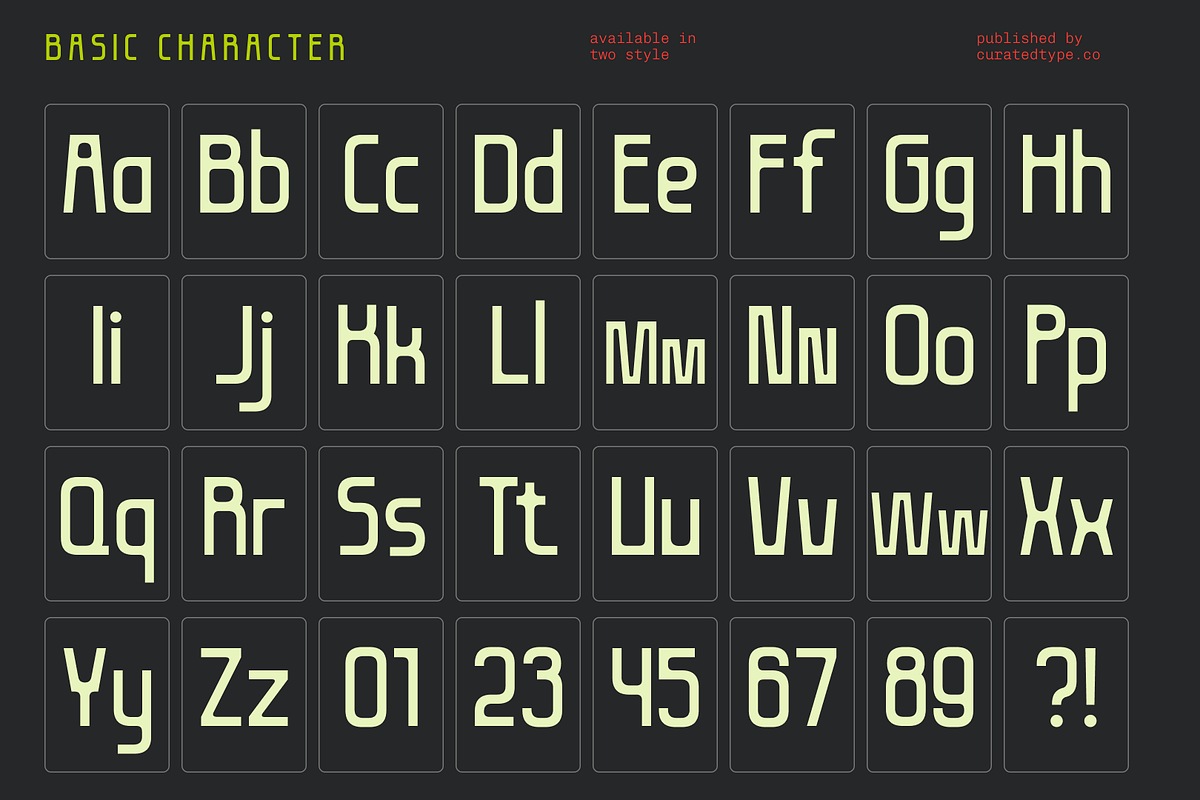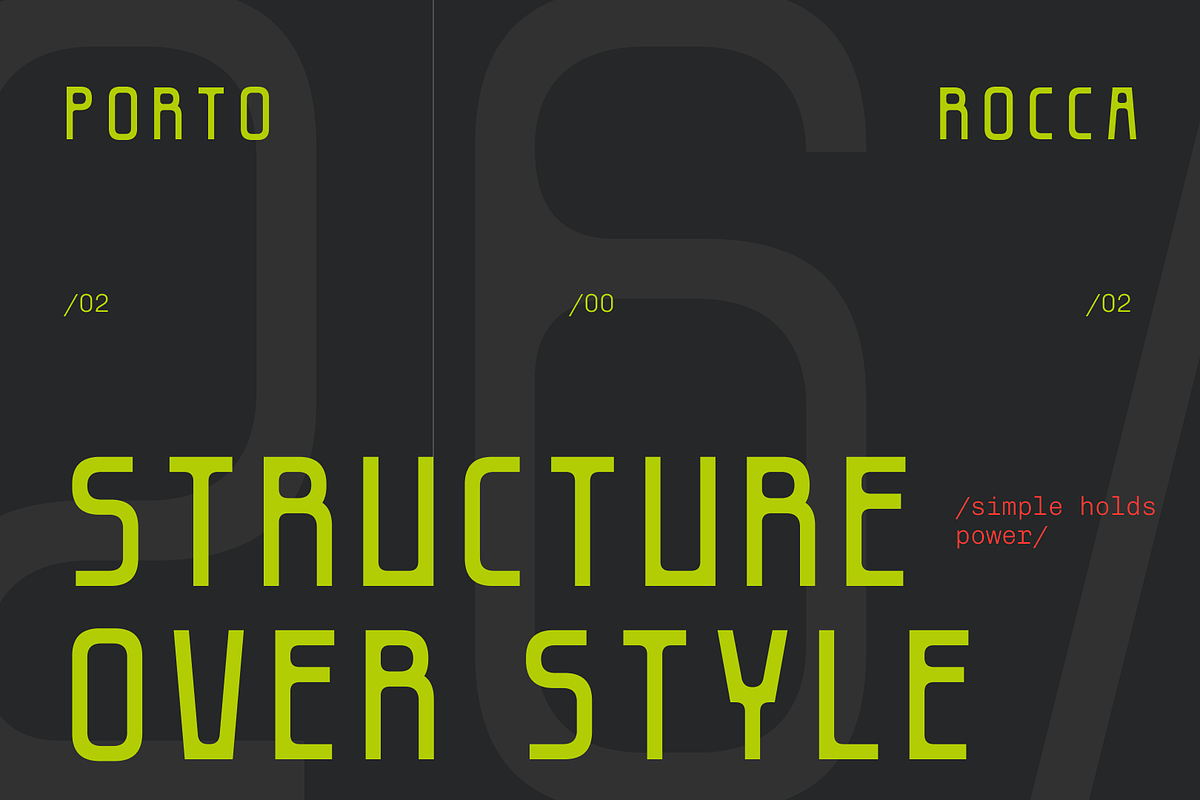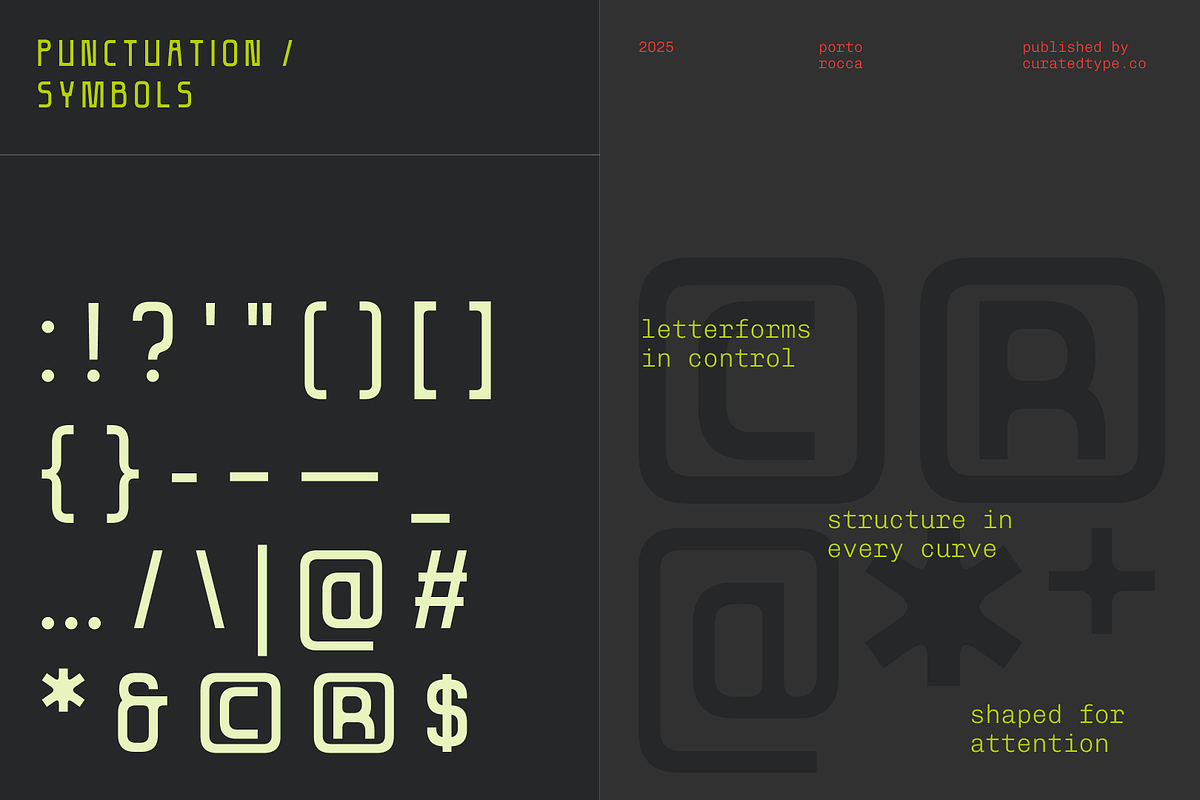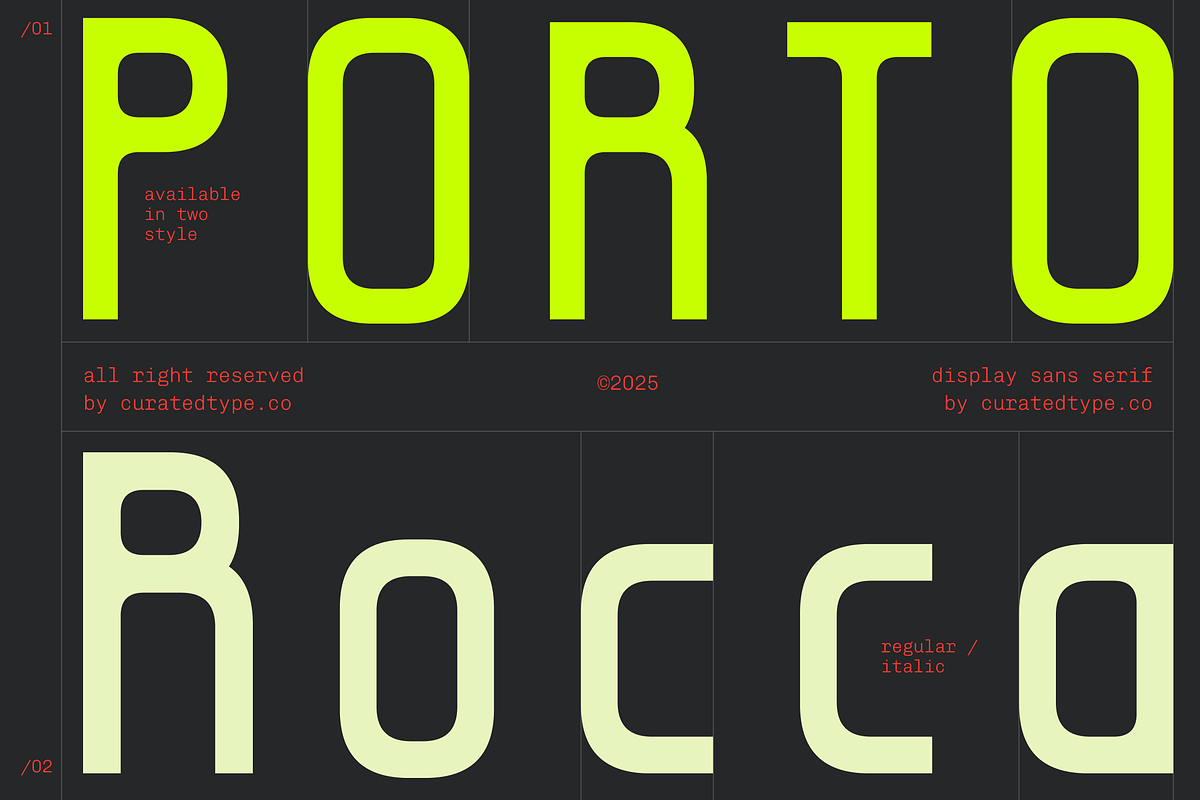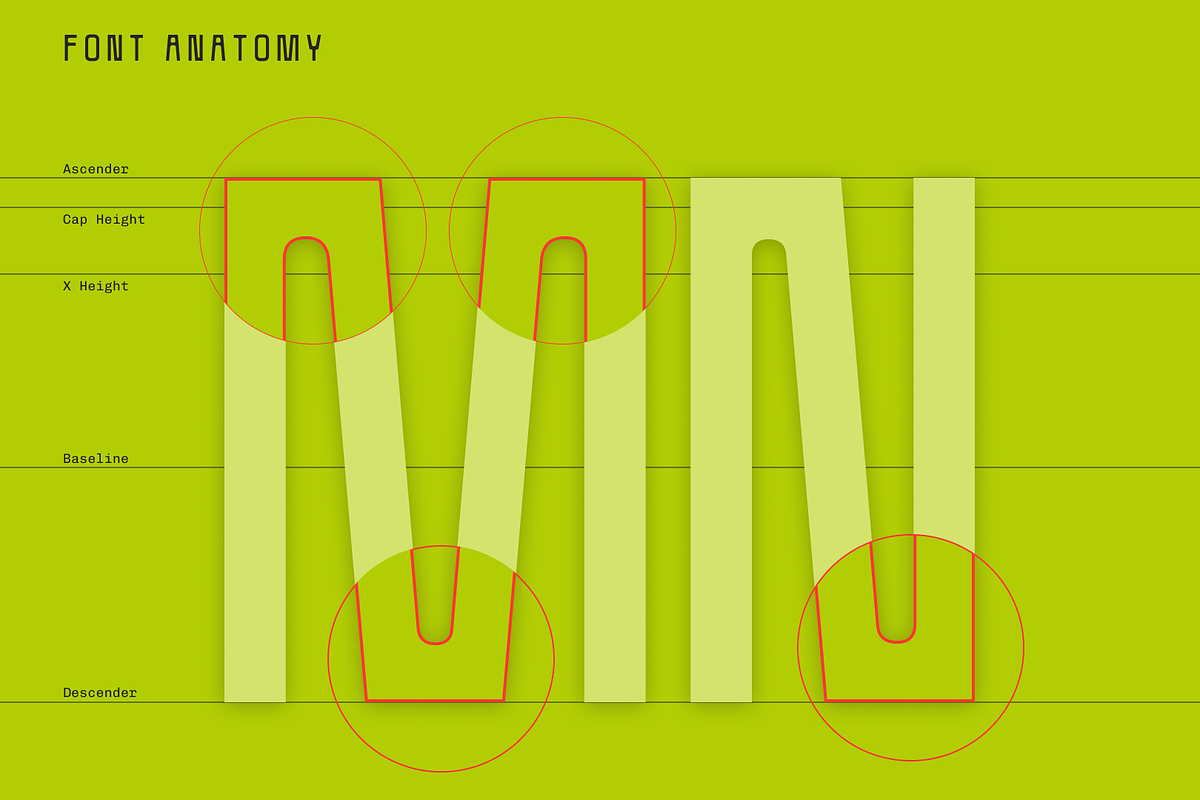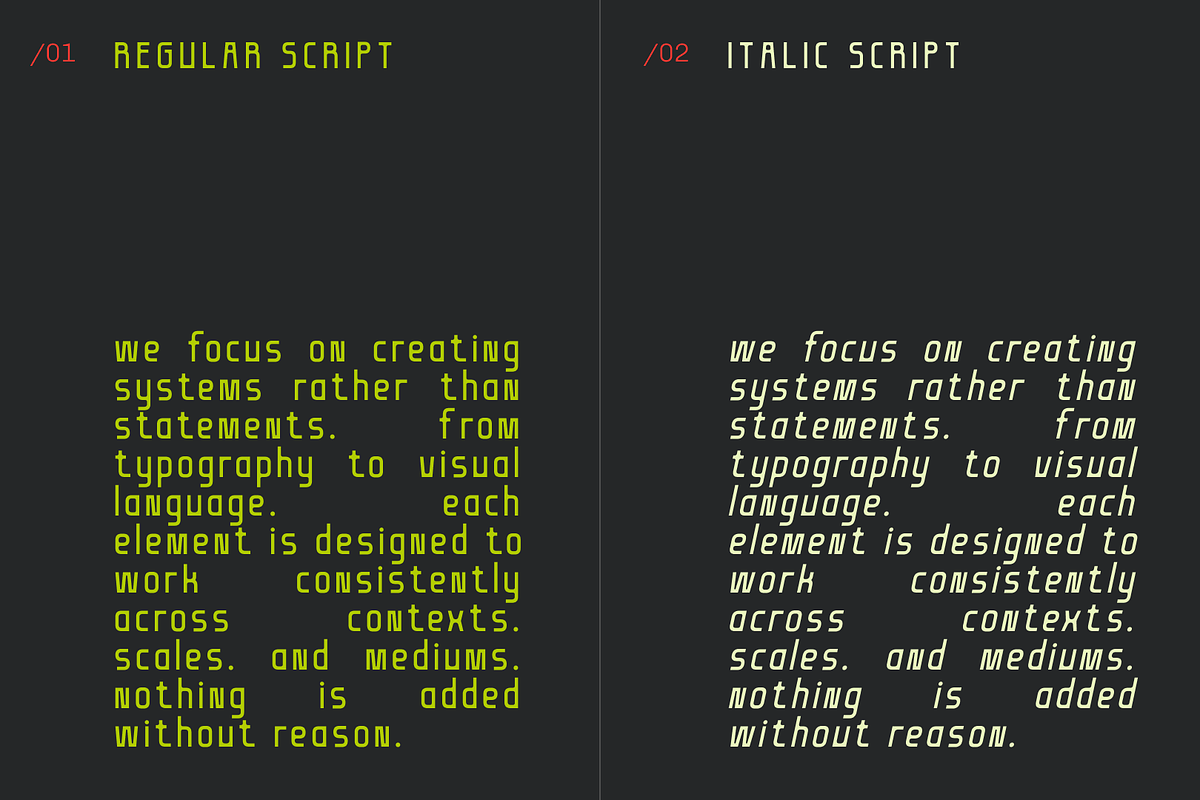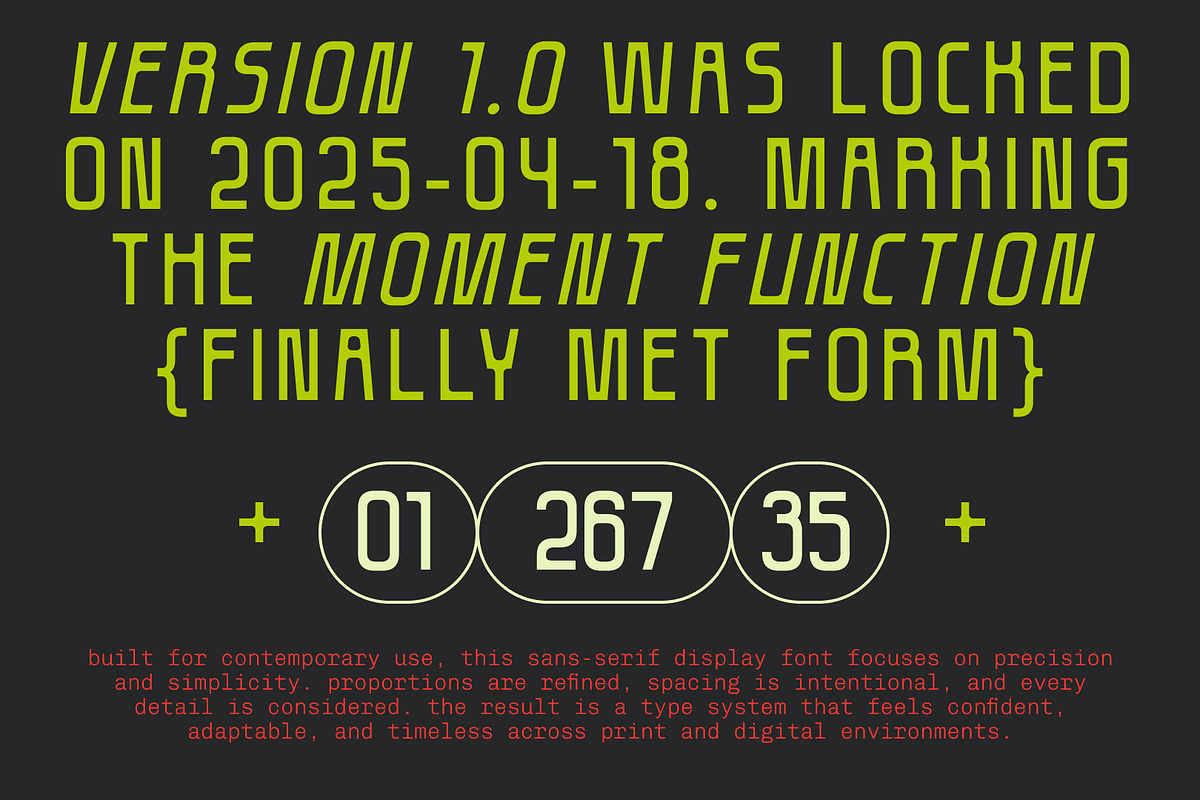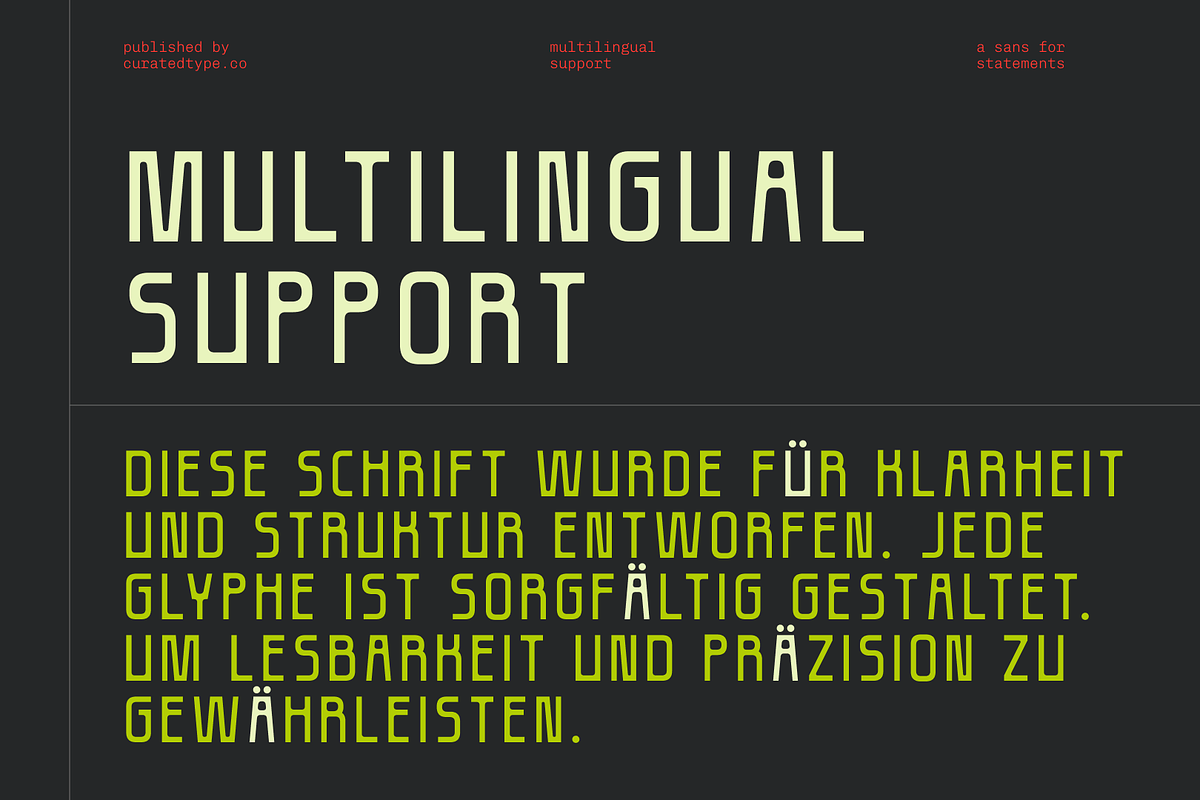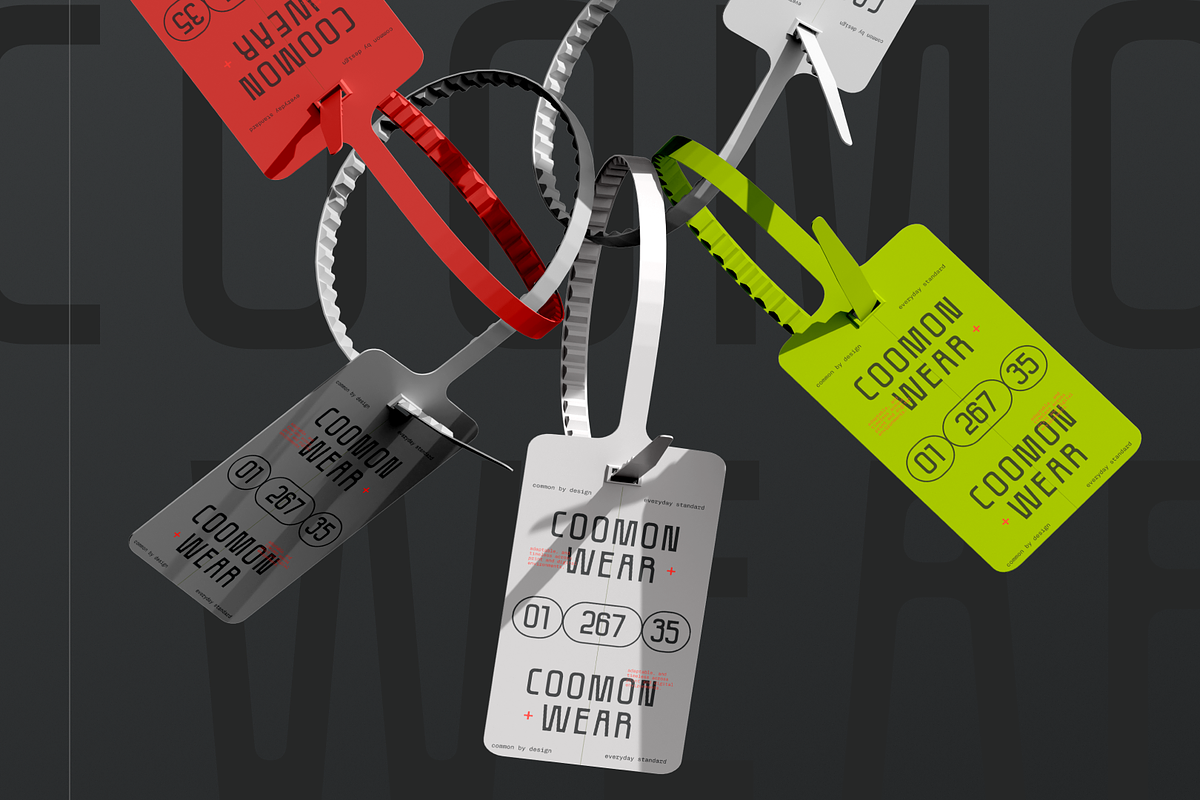
Porto Rocca Typeface
Meet Porto Rocca: Where Precision Meets Personality. Porto Rocca is a typeface that bridges the gap between retro-gaming nostalgia and modern industrial design. Its distinct squared-oval structure gives it a bold, confident personality that stands out without shouting. Whether you are aiming for a cyberpunk aesthetic, a clean architectural look, or a tech-forward brand identity, this font brings a structured, geometric harmony to your layout that feels both futuristic and timeless.
Versatility for the Digital Age. Perfect for eye-catching headlines, tech-focused logos, and bold visual identities, Porto Rocca is engineered to carry a design on its own. It works exceptionally well in large display sizes where its unique modular details can shine, yet remains clear enough for UI elements and short blocks of text. Use it for poster design, mobile app interfaces, esports graphics, or automotive decals to add an instant touch of contemporary cool to your projects.